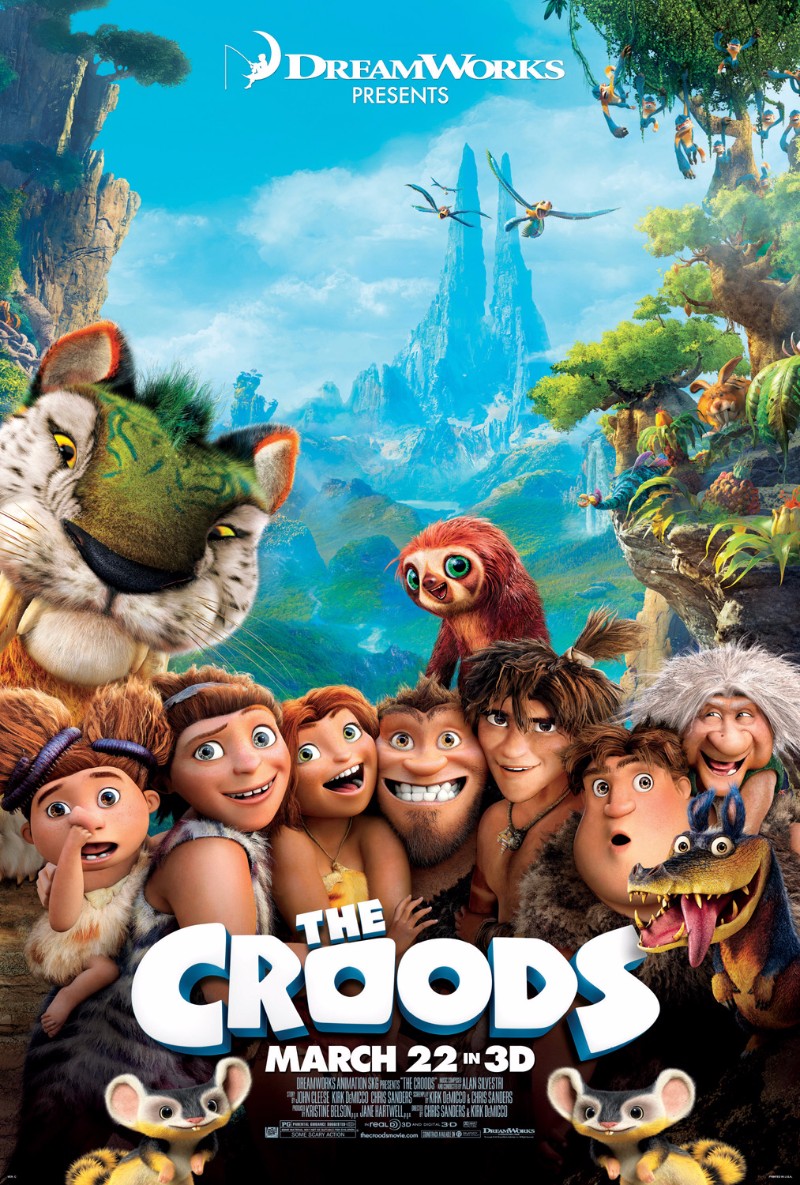
The Croods Font
AnimationThe Croods is a 2013 American animated adventure comedy film produced by DreamWorks Animation and distributed by 20th Century Fox. The film follows the Croods, a prehistoric family who are forced to leave their cave after a natural disaster in search of a new home.
The Croods title in the poster uses a sans serif typeface called Neuland, designed by Rudolf Koch in 1923 for Klingspor. The Neuland letterforms have the appearance of having been roughly carved from wood.